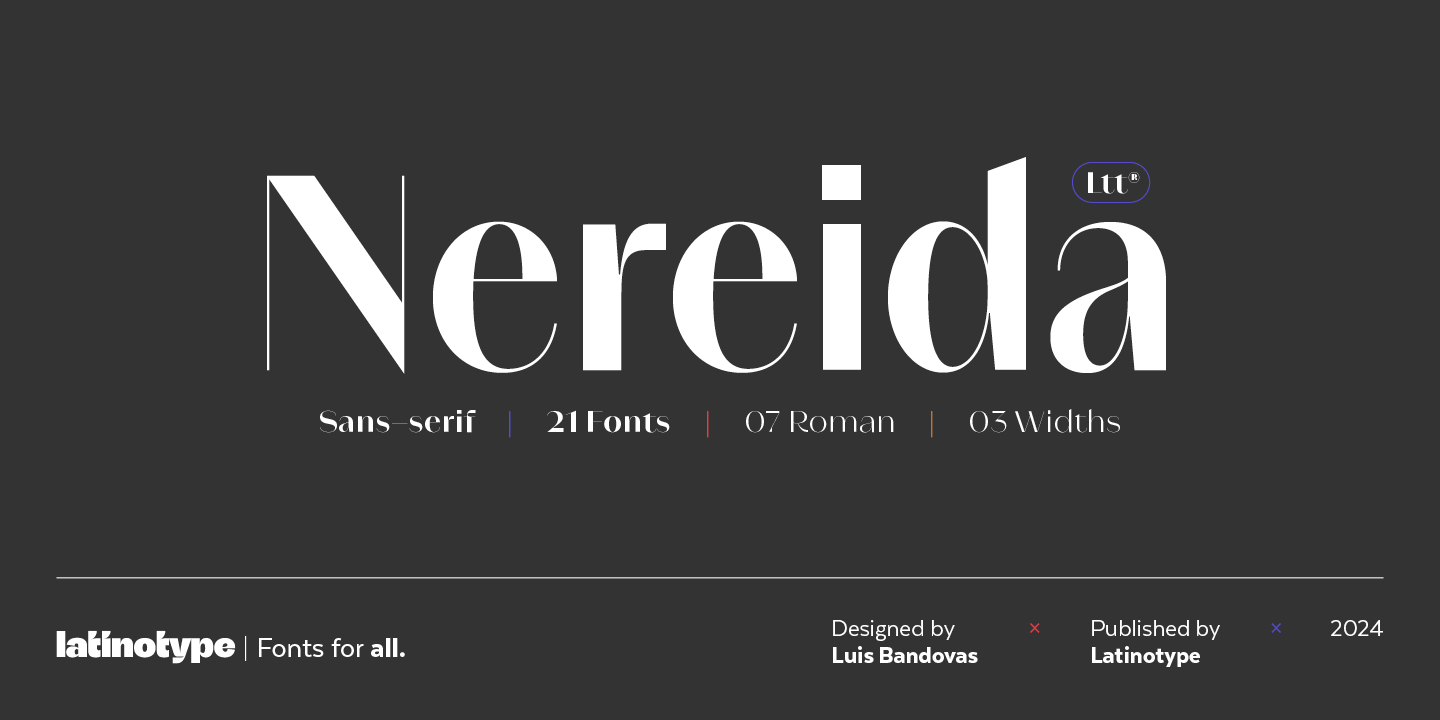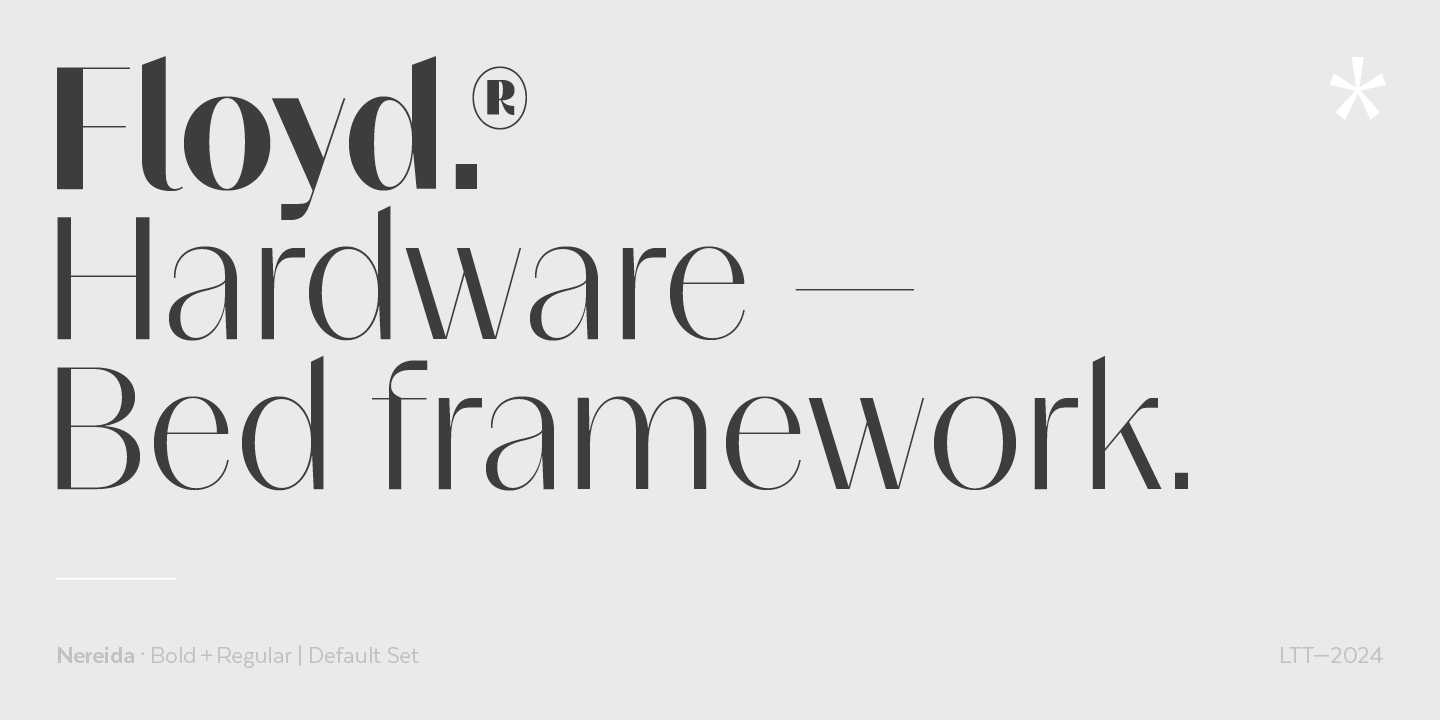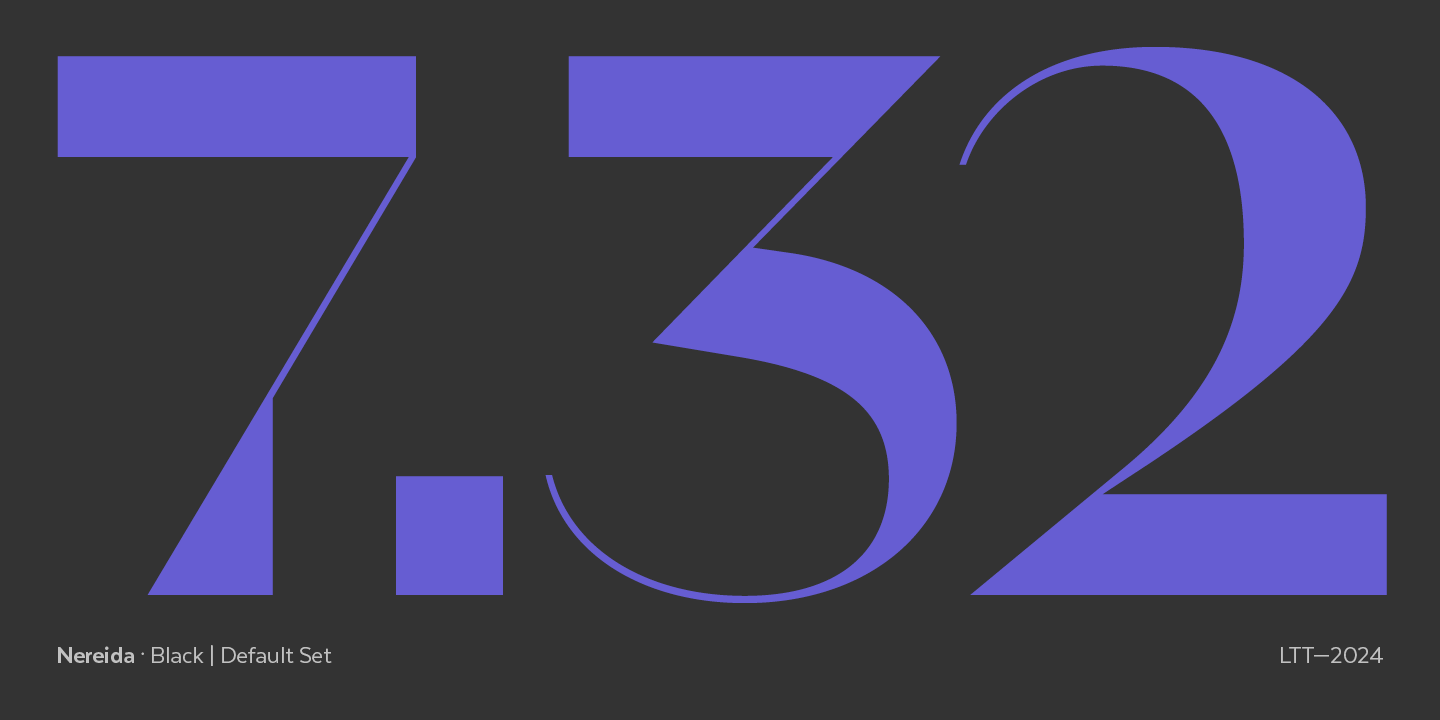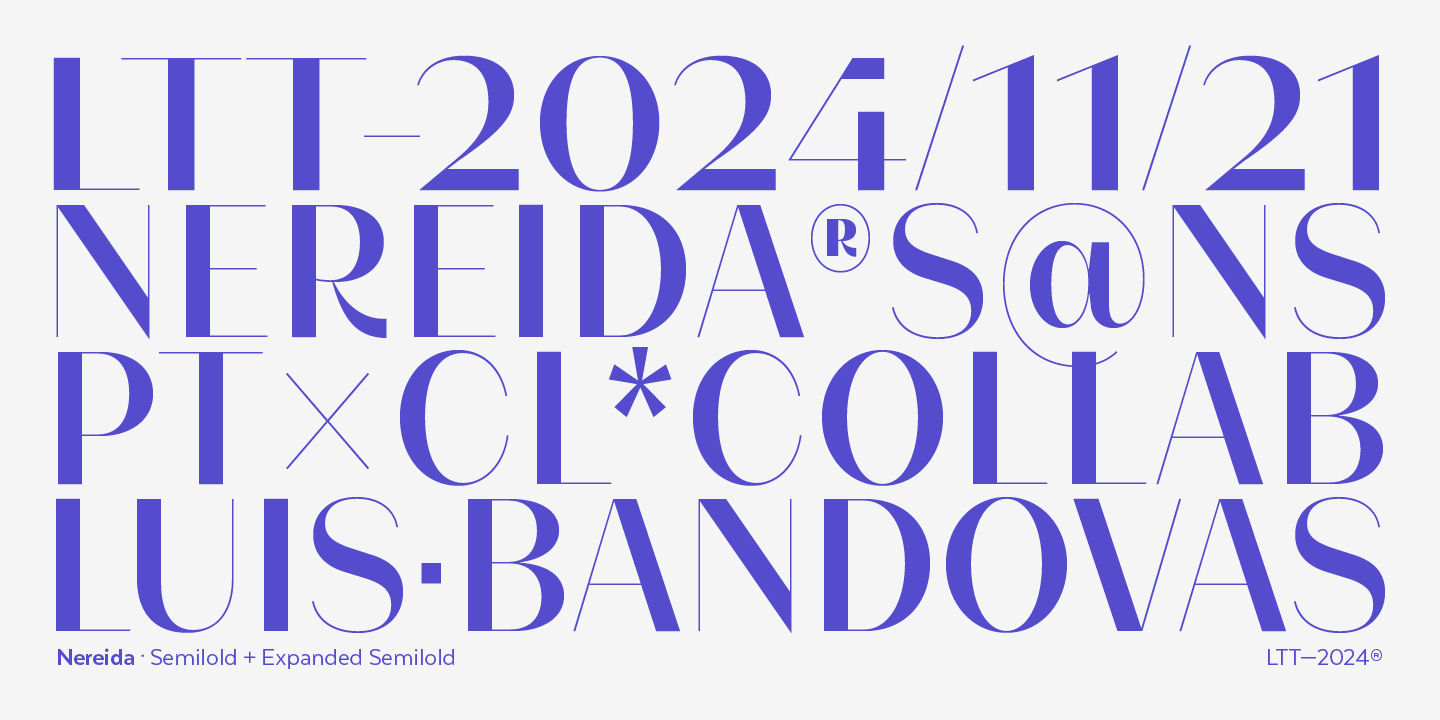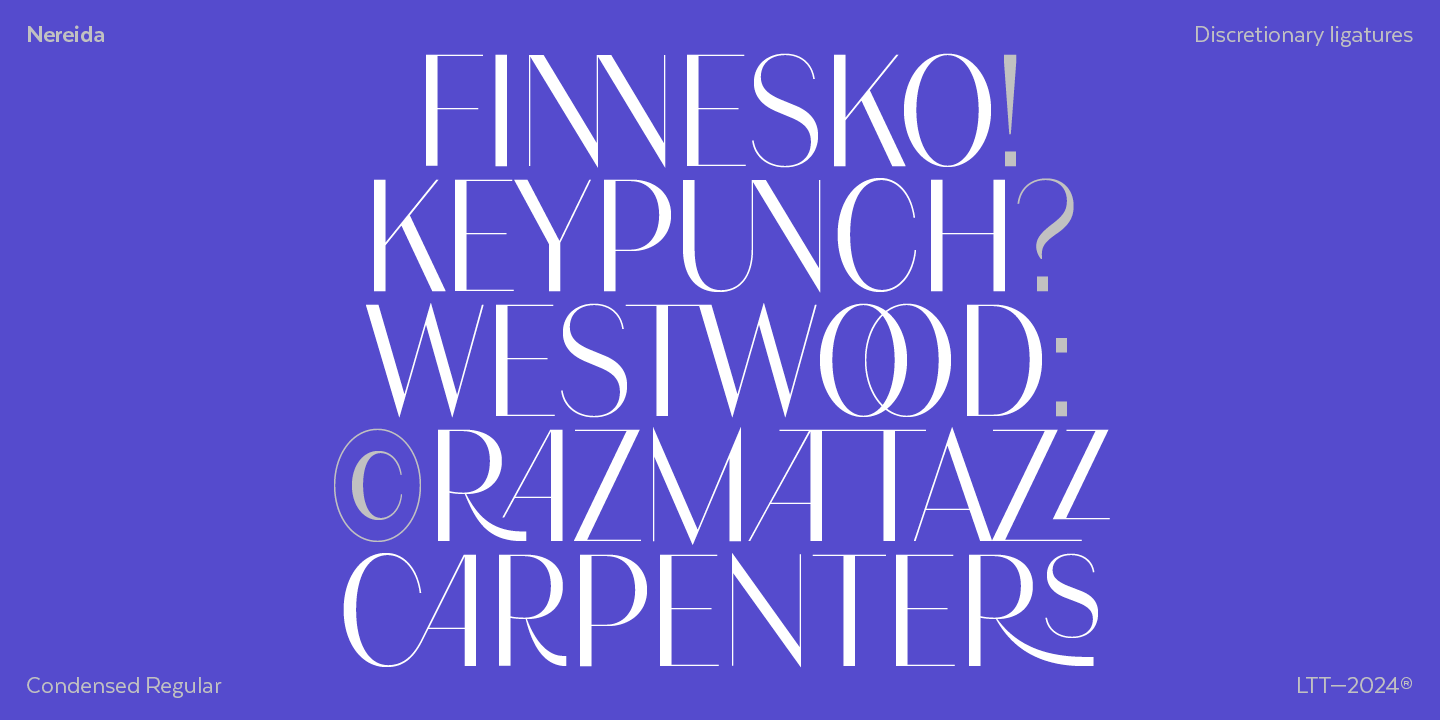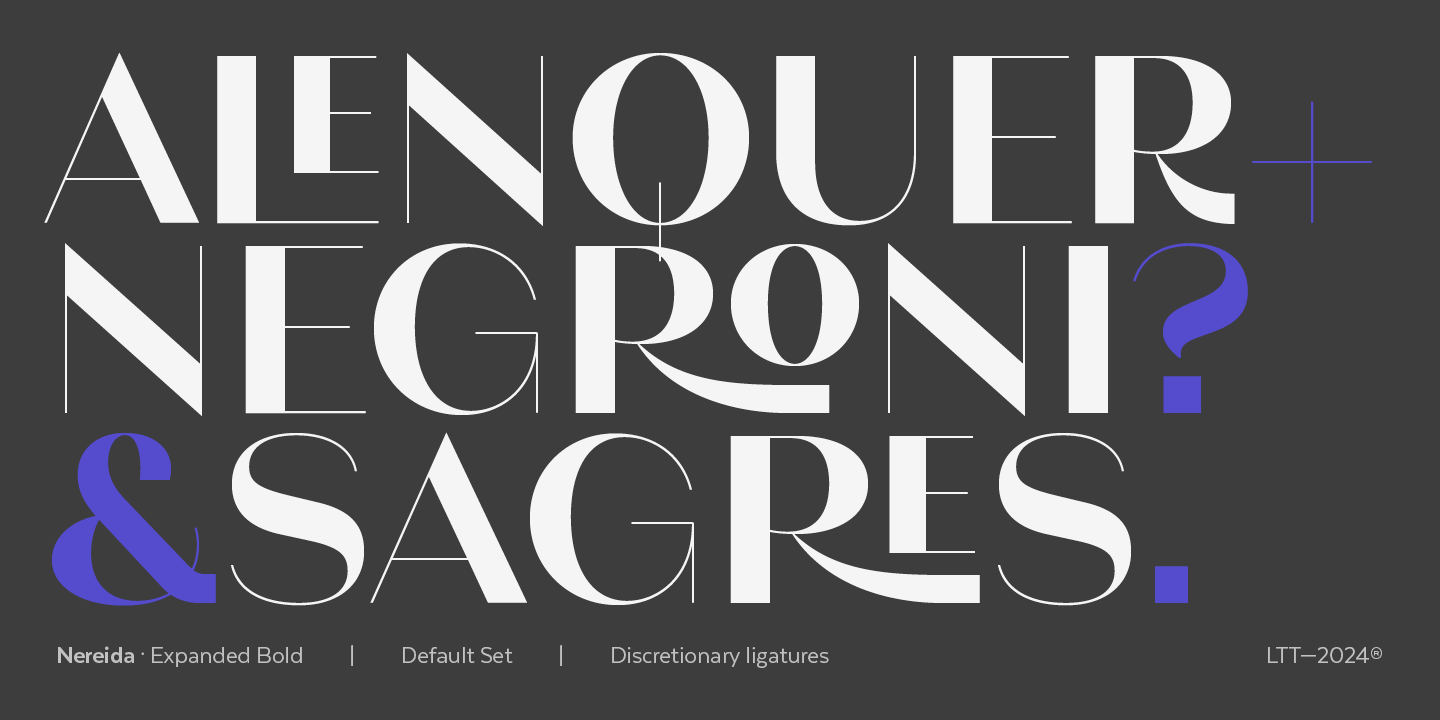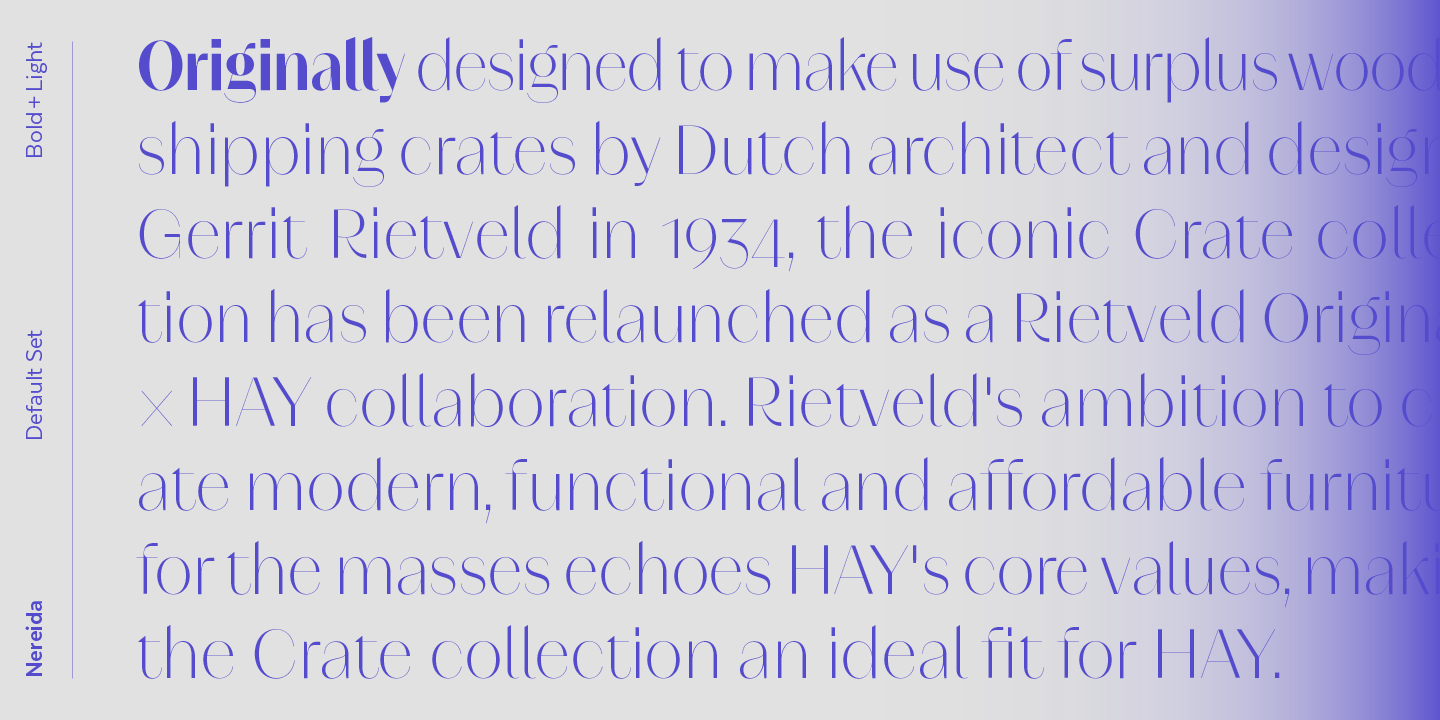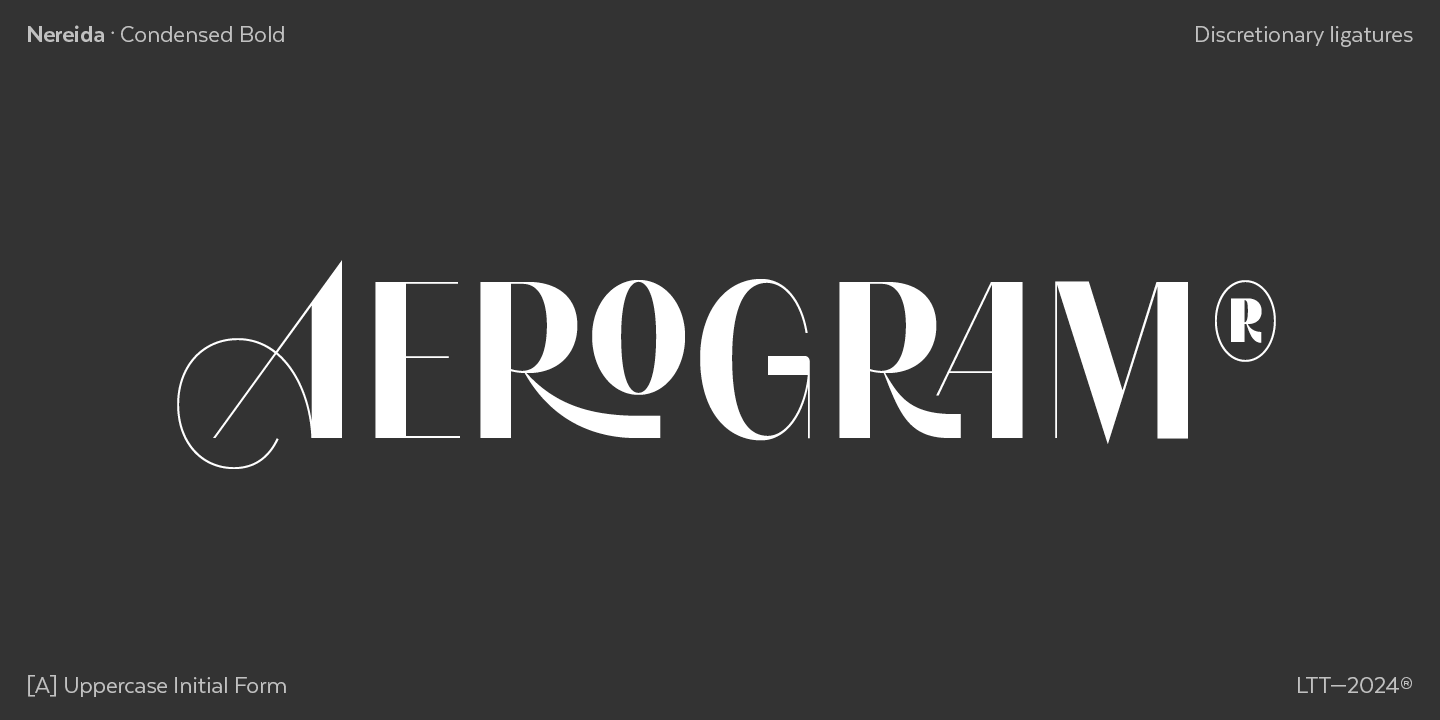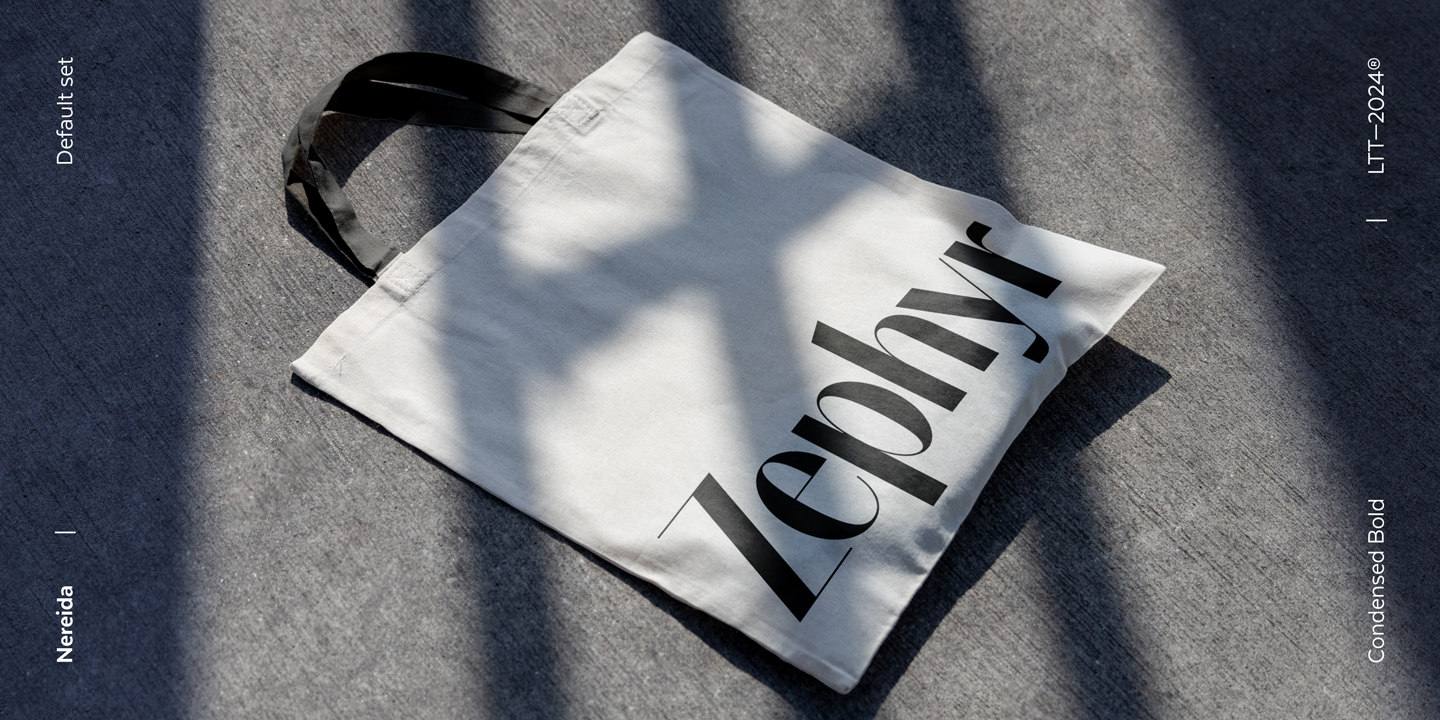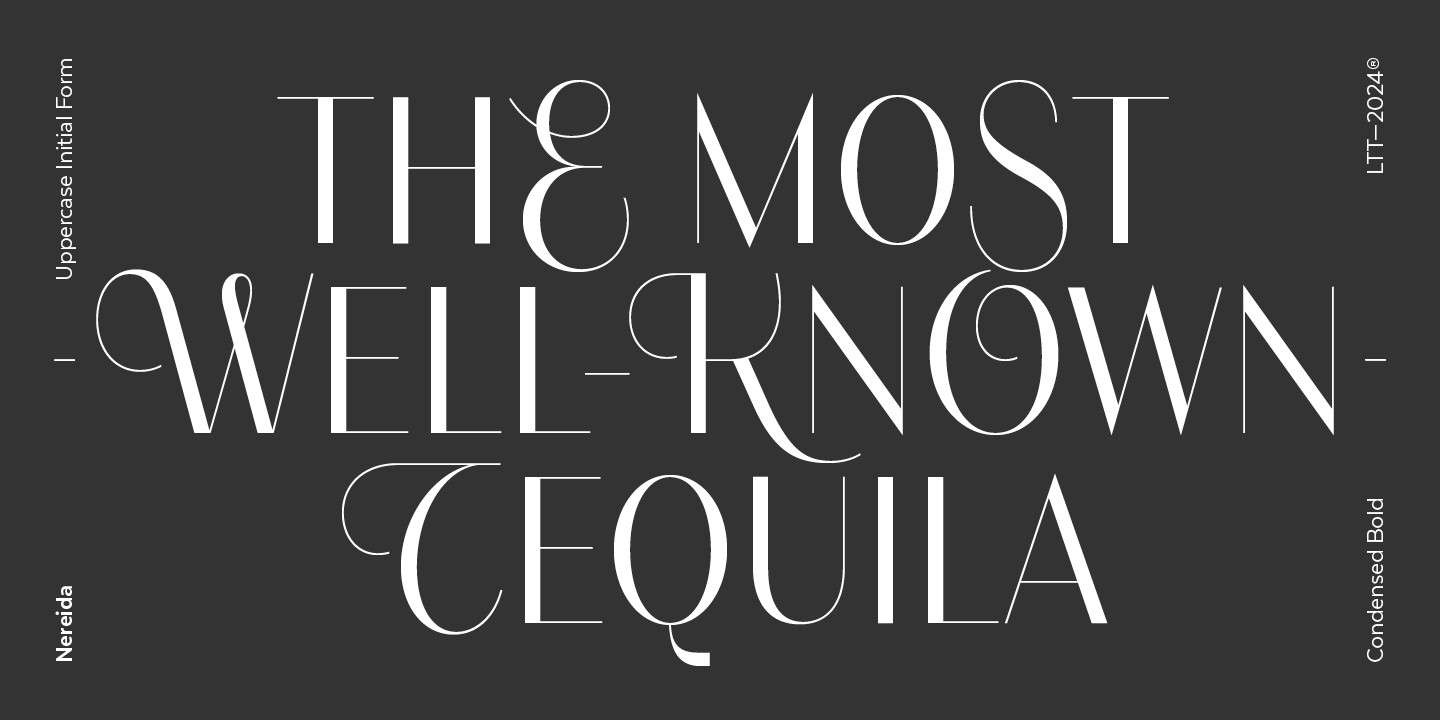
Nereida is a distinctive typographic experience for magazines, headlines, logos, packaging and beauty products. It offers the unique possibility of transmitting messages with subtlety in short words and with force in longer text compositions. Each stroke and curve of Nereida contributes to creating a unique visual experience, adding a touch of elegance and creativity to any project.